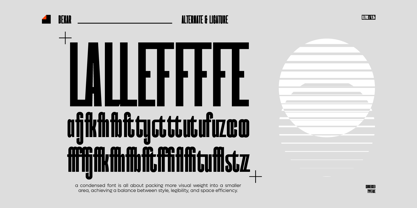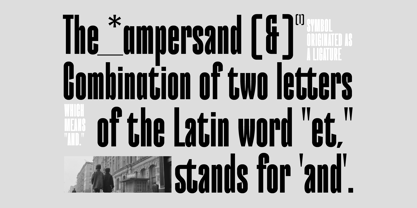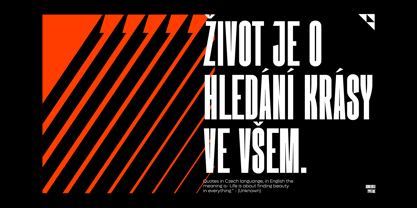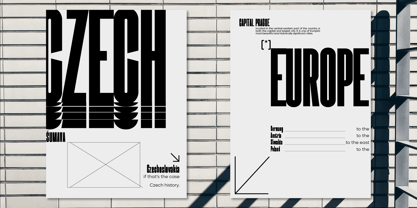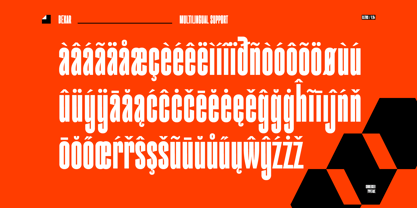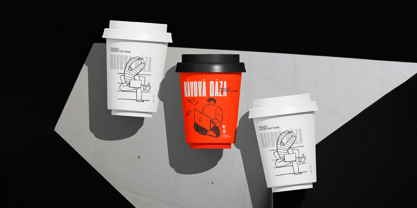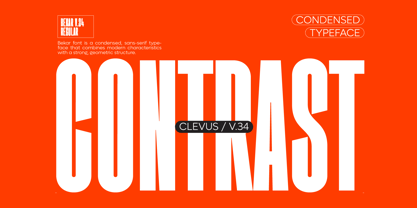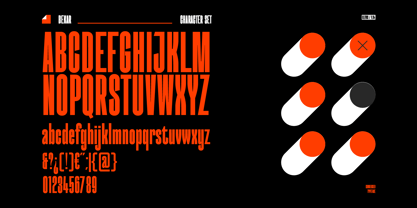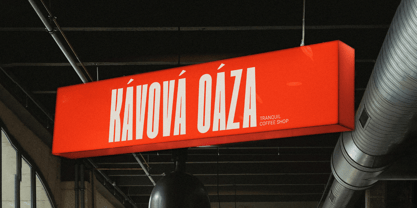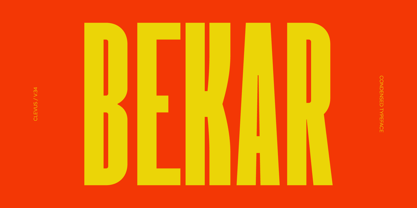
Bekar
von Clevus
Die Schriftfamilie Bekar wurde von Alfinu Zafir entworfen und von Clevus veröffentlicht. Bekar enthält 1 Stile.
Proudly present Bekar Font, is a modern and bold condensed font inspired by classic grotesque typefaces.
Bekar equipped with several OpenType. Have 40 unique alternates and ligatures. Comes with alternatives and ligatures, and helps to create stunning logos, quotes, posts, blog posts, branding projects, magazine imagery, wedding invitations, poster and much more.
Bekar delivers a powerful impact with a sleek, contemporary style.